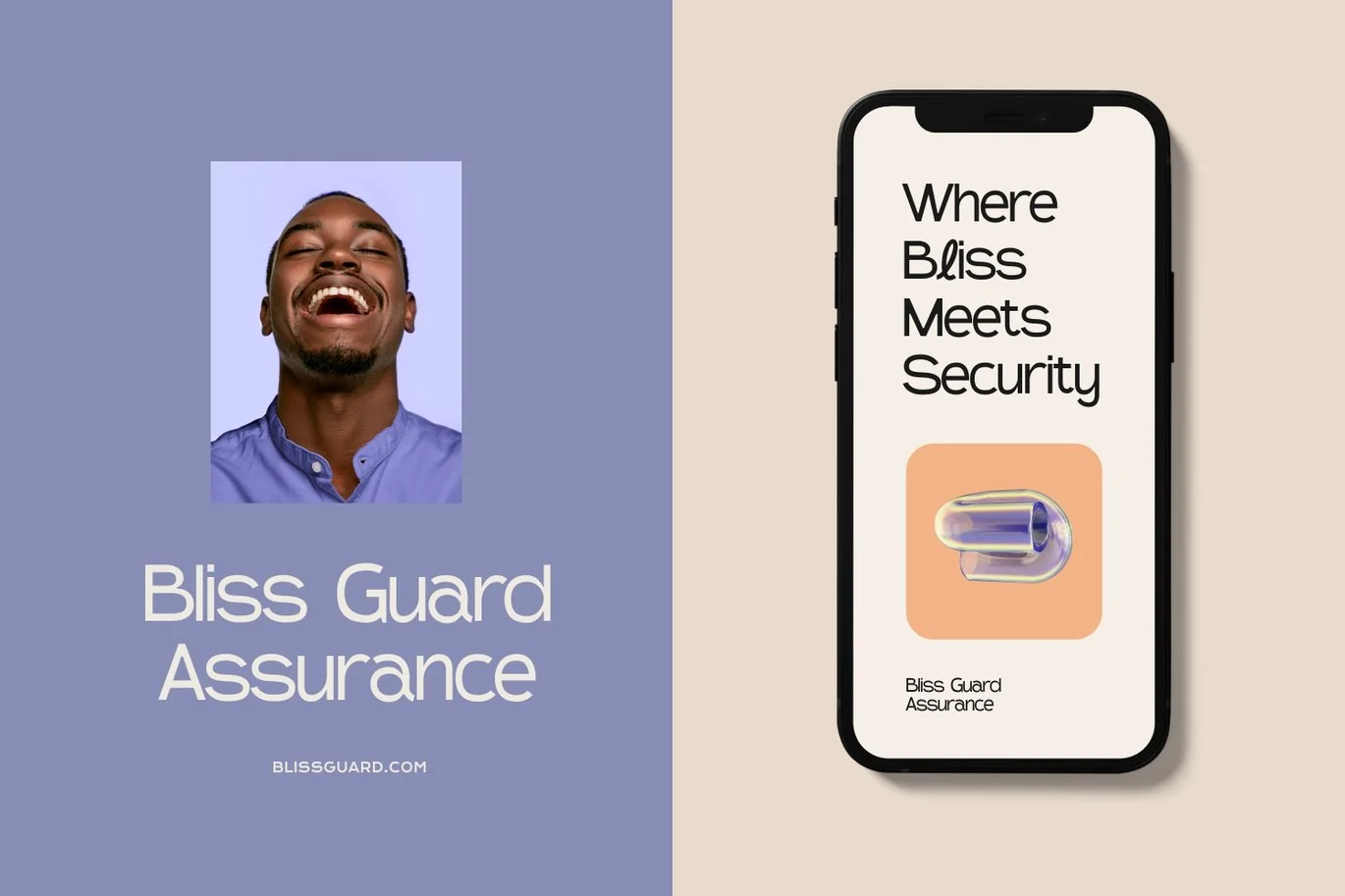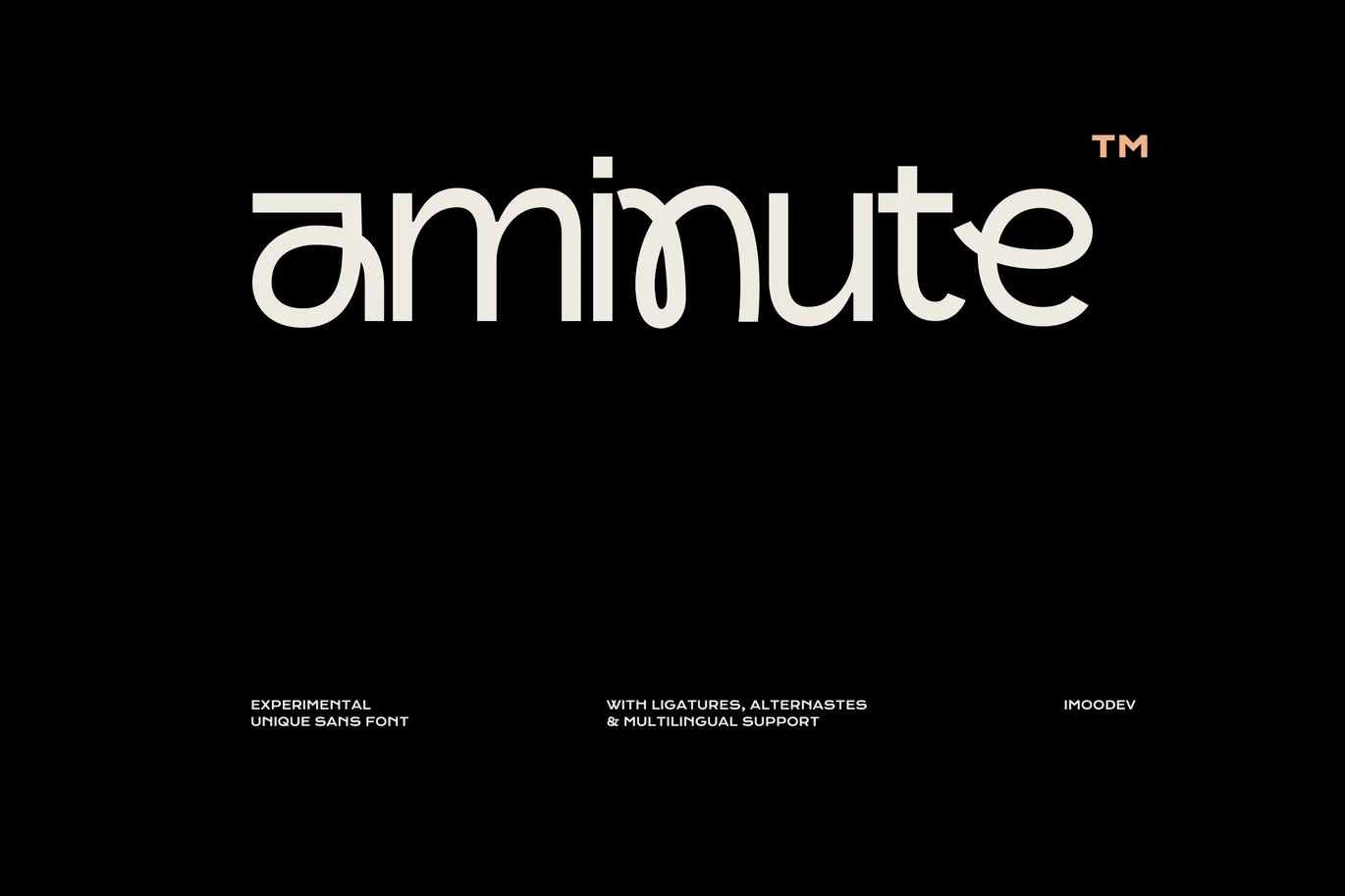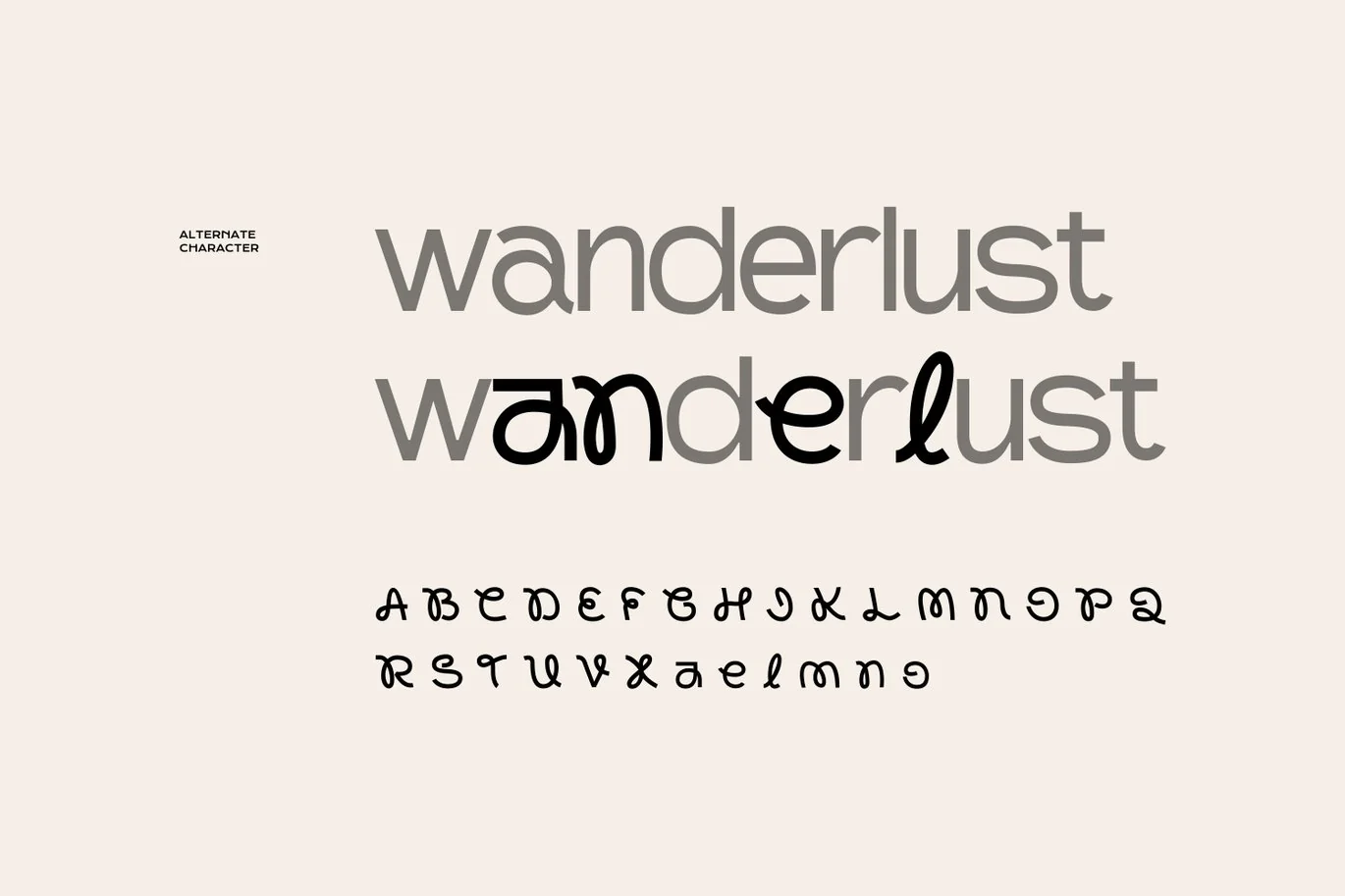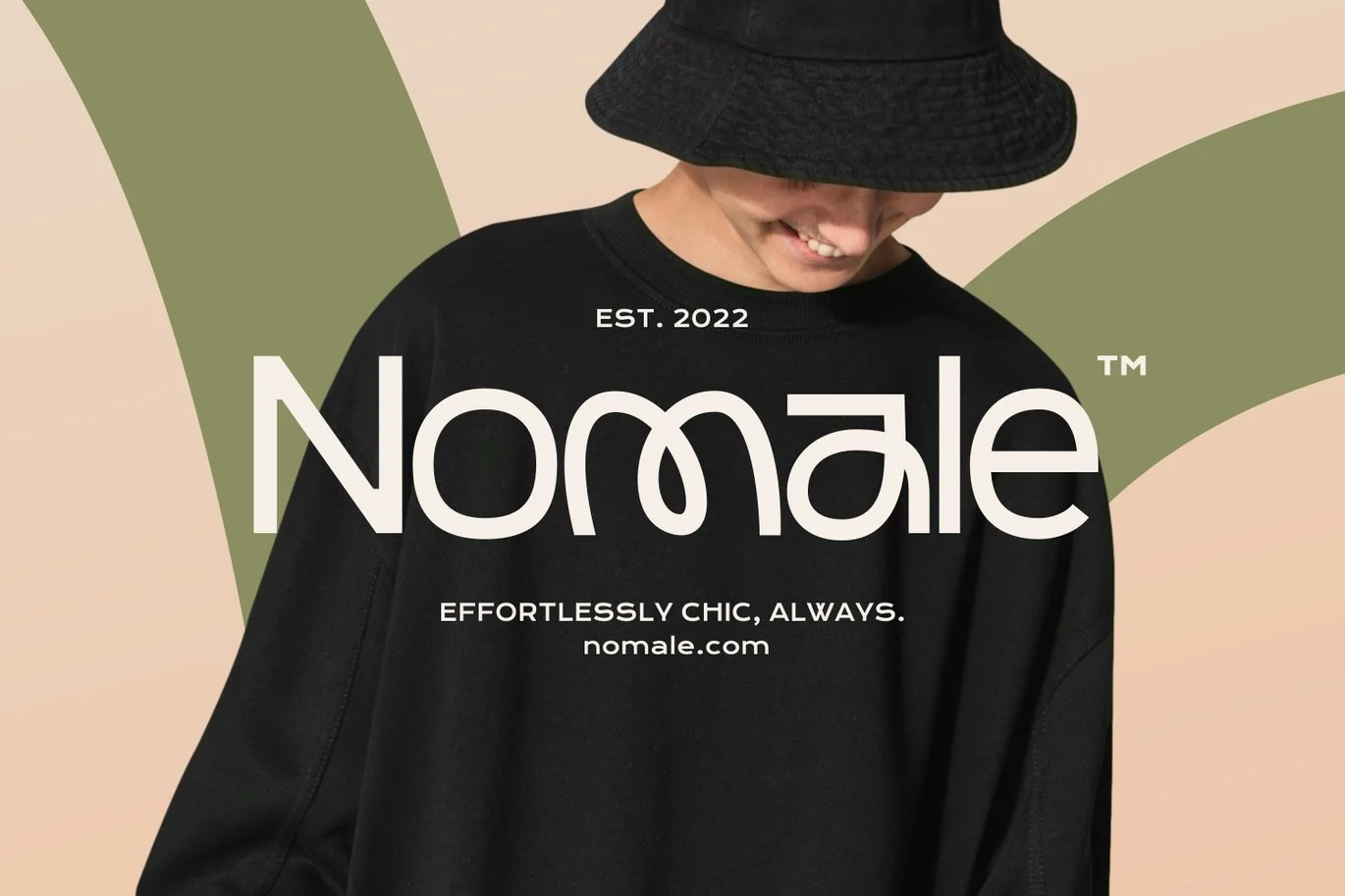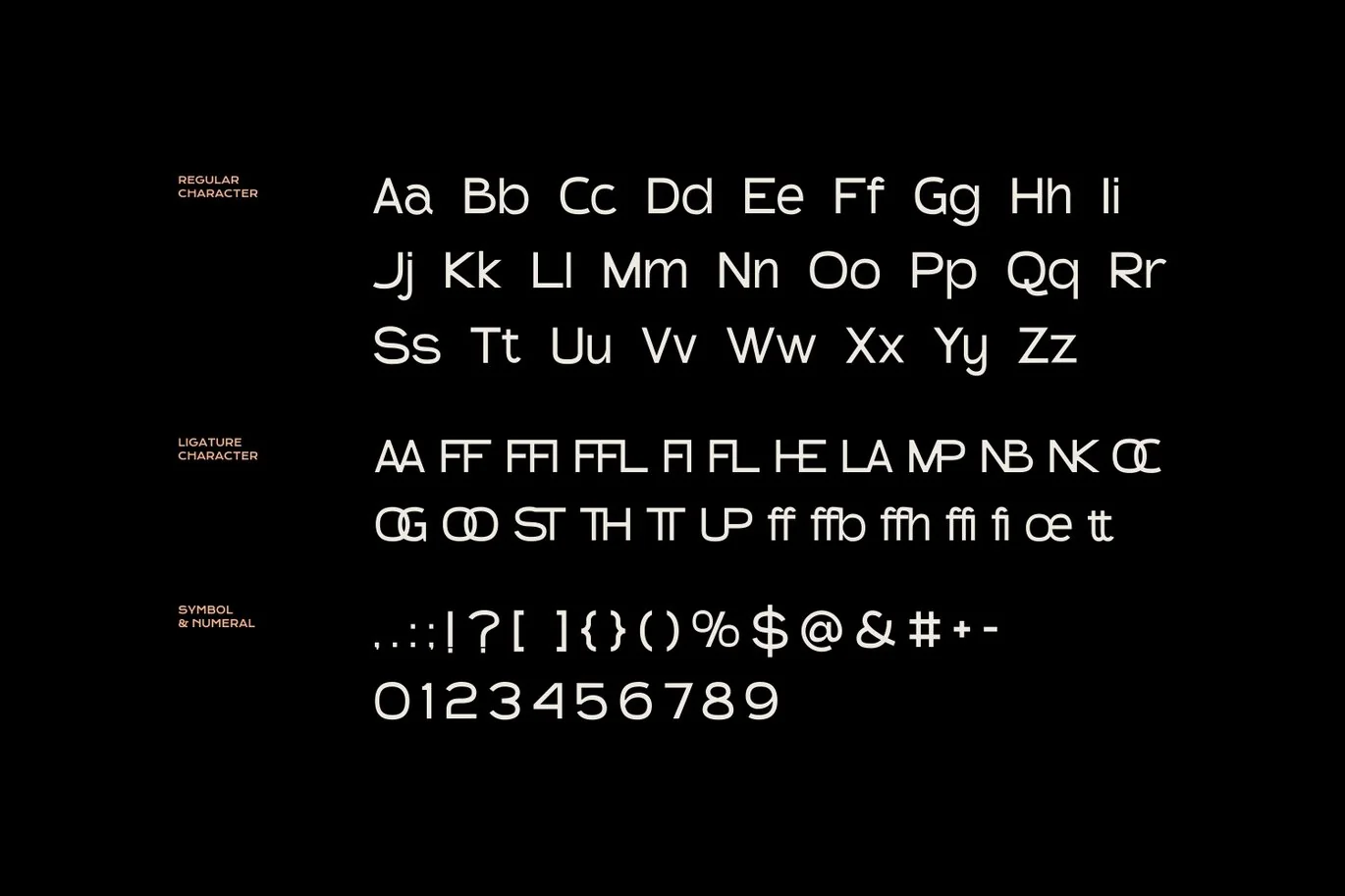
Aminute – Experimental Unique Sans Font
Aminute is an experimental, sans-serif typeface with a unique, artistic flair. It features playful and unconventional letterforms, with distinctive ligatures and alternates that give each character a creative twist.
Featuring both standard and alternate characters. The standard version is a clean, modern sans-serif with smooth curves, while the alternate characters add a quirky, whimsical touch with unique, stylized letterforms that give an artistic flair.
A versatile font that works in both uppercase and lowercase sizes, suitable for a wide variety of projects such as a display font for headings, logo fonts, invitations, branding, book covers, magazine layouts, card, product packaging, product mockup, mugs, posters, labels, editorials, art deco, and any type of advertising purpose.